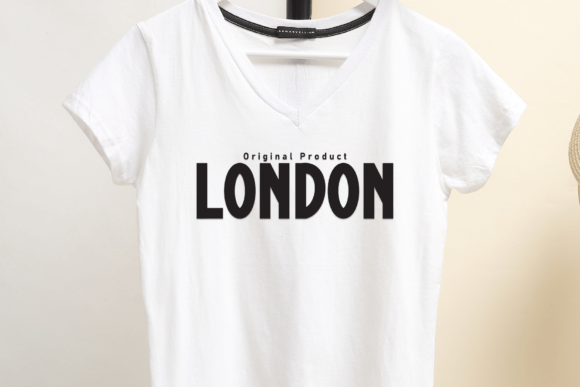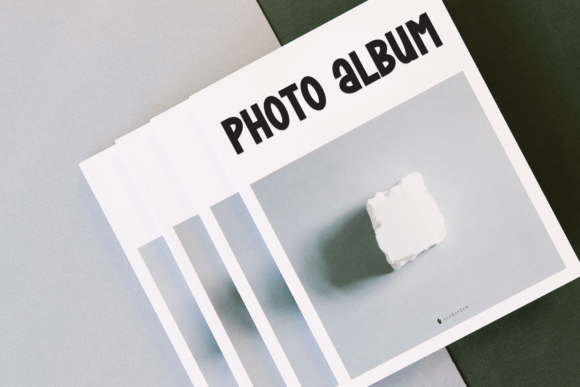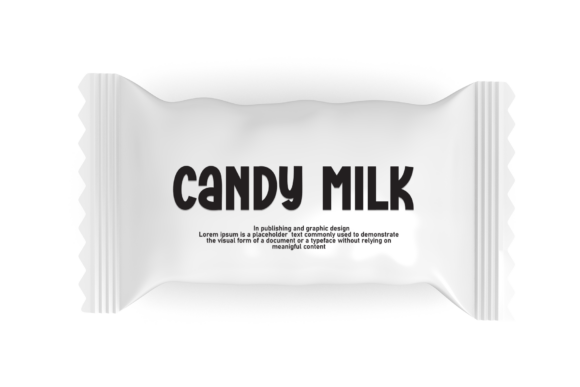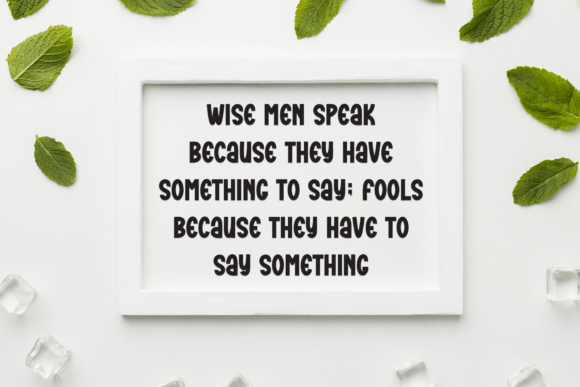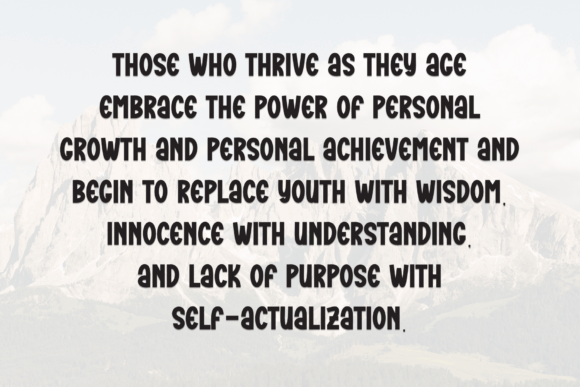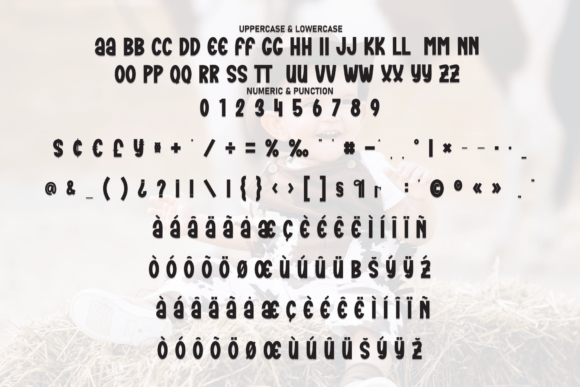
Baby Cowboy Font: The Perfect Addition to Your Design Arsenal
In the world of typography, fonts play a crucial role in conveying the tone and personality of a brand or design. If you’re looking for a font that exudes a sense of fun, playfulness, and approachability, look no further than the Baby Cowboy font. This casual display font has been making waves in the design community, and for good reason. In this article, we’ll dive into the world of Baby Cowboy and explore what makes it a must-have for designers and crafters alike.
The Birth of Baby Cowboy
Baby Cowboy is a relatively new font, designed to bring a relaxed and playful vibe to any project. Its creator had a vision of crafting a font that would capture the essence of a carefree, laid-back attitude. The result is a bold, approachable font that is perfect for headlines, posters, and branding. Whether you’re working on a project for a children’s toy brand, a music festival, or a casual clothing line, Baby Cowboy is sure to hit the right note.
Key Characteristics of Baby Cowboy
So, what sets Baby Cowboy apart from other fonts? Here are a few key characteristics that make it stand out:
- Bold and Approachable: Baby Cowboy’s letterforms are bold and easy to read, making it perfect for headlines and titles.
- Playful and Fun: The font’s playful vibe is infectious, making it ideal for projects that require a lighthearted touch.
- Easygoing Style: Baby Cowboy’s effortless style makes it easy to pair with other fonts and design elements.
Uses for Baby Cowboy
Baby Cowboy is a versatile font that can be used in a variety of design projects. Here are a few ideas to get you started:
- Headlines and Titles: Use Baby Cowboy to create bold, eye-catching headlines that grab attention.
- Posters and Flyers: The font’s playful vibe makes it perfect for posters and flyers that need to stand out.
- Branding and Logo Design: Baby Cowboy can be used to create a fun and approachable brand identity.
- Social Media Graphics: The font’s casual style makes it ideal for social media graphics, such as Instagram posts and Facebook headers.
Why Designers and Crafters Love Baby Cowboy
So, why are designers and crafters raving about Baby Cowboy? Here are a few reasons:
- Easy to Read: Baby Cowboy’s bold letterforms make it easy to read, even at smaller sizes.
- Versatile: The font’s playful vibe makes it suitable for a wide range of design projects.
- Unique: Baby Cowboy’s unique style sets it apart from more traditional fonts.
Tips for Using Baby Cowboy
Here are a few tips for getting the most out of Baby Cowboy:
- Pair with Other Fonts: Experiment with pairing Baby Cowboy with other fonts to create a unique look.
- Use it Sparingly: While Baby Cowboy is a fun font, it can be overwhelming if used too much. Use it sparingly to create a bold impact.
- Experiment with Colors: Baby Cowboy looks great in a variety of colors. Experiment with different hues to find the perfect fit for your project.
In conclusion, Baby Cowboy is a casual display font that brings a relaxed and playful vibe to any project. Its bold, approachable letterforms make it perfect for headlines, posters, and branding. Whether you’re a designer or crafter, Baby Cowboy is a must-have font that is sure to enhance your creative work. With its easygoing style and infectious playfulness, Baby Cowboy is the perfect addition to your design arsenal.